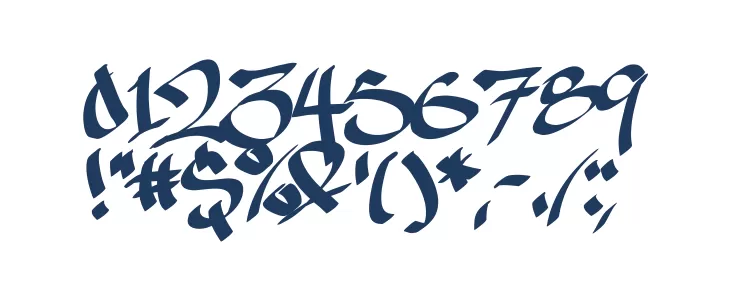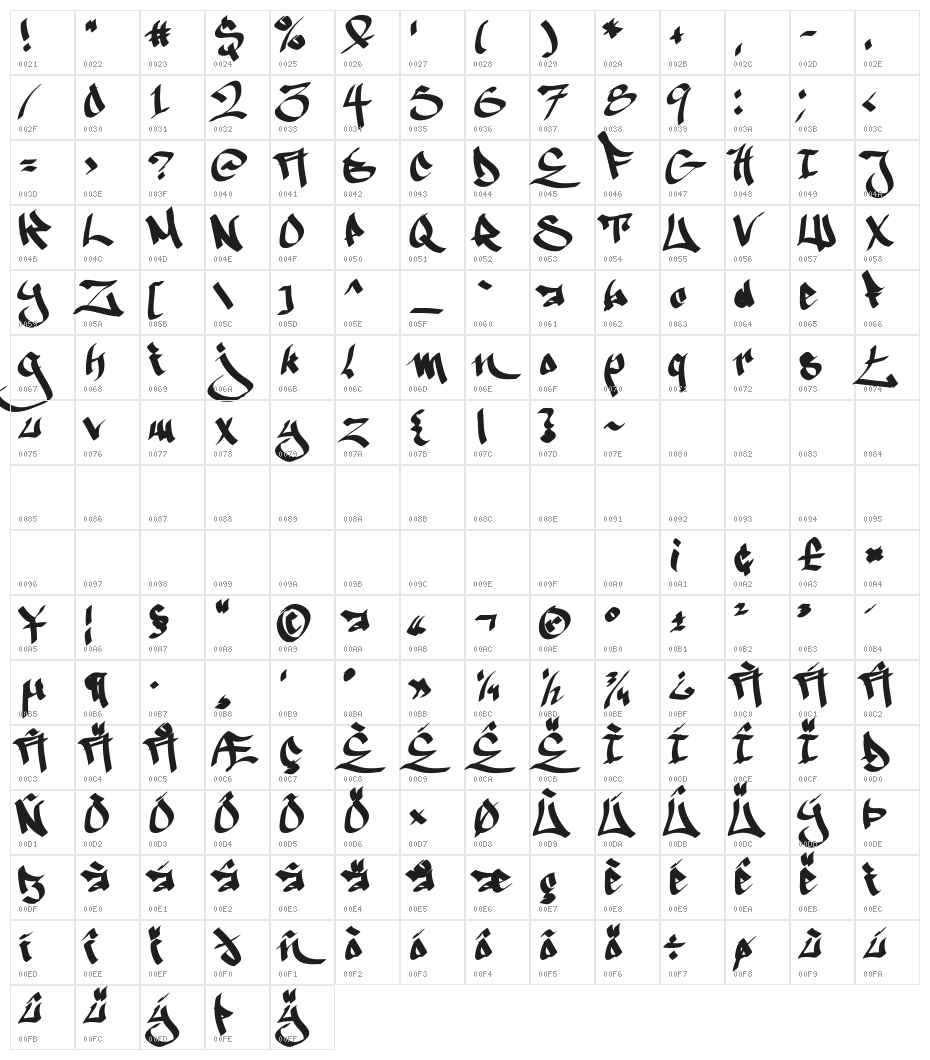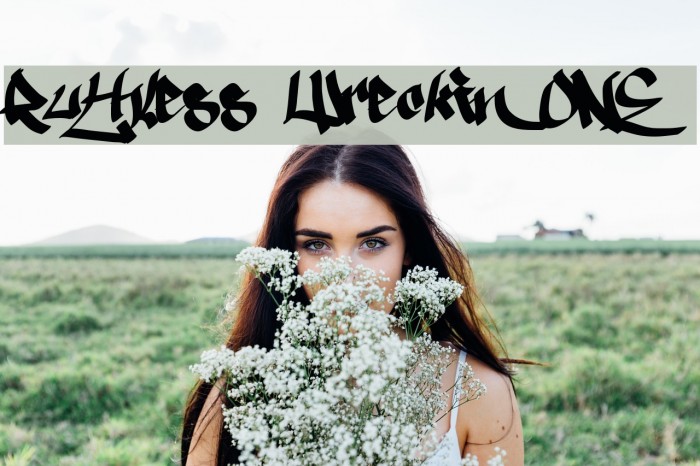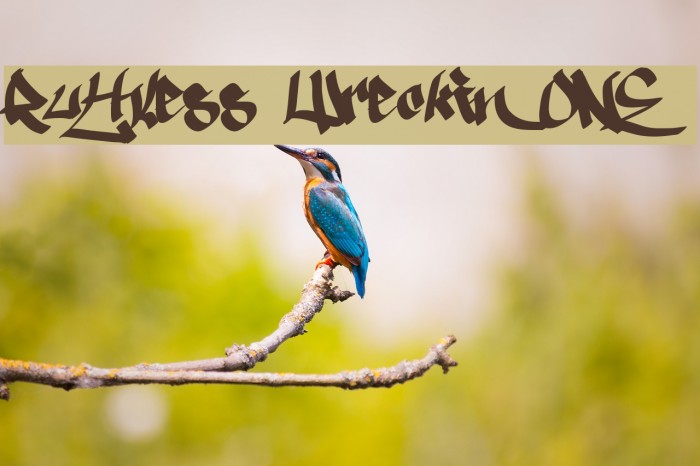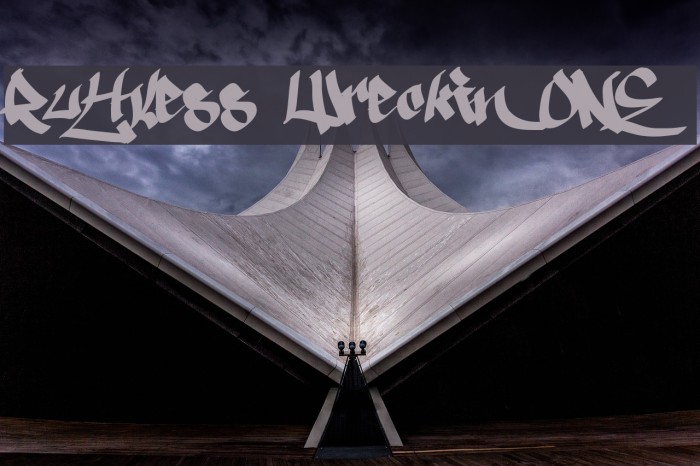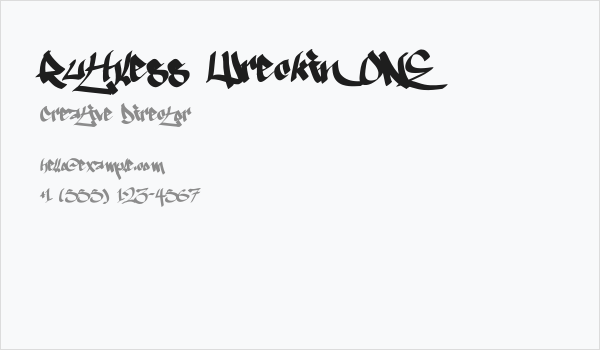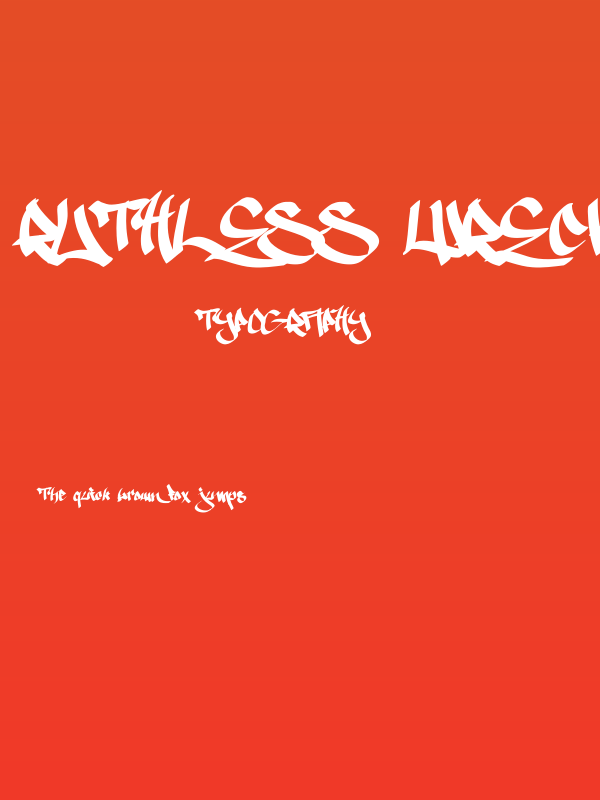
Ruthless Wreckin ONE Font
Ruthless Wreckin ONE Description
This font exudes a bold and dynamic graffiti style, characterized by its sharp, angular strokes and fluid, energetic forms. The letters are highly stylized, with exaggerated curves and dramatic flair, giving it a rebellious and urban aesthetic. The uppercase and lowercase letters maintain a consistent style, with a sense of movement and rhythm throughout. Numbers and special characters are equally expressive, adding to the font's overall impact. The design is reminiscent of street art, making it ideal for projects that require a strong, edgy visual statement.
| Overall Style | Urban, Rebellious, Graffiti |
| Use Case | Logos, Posters, Album Covers |
| Proposed Projects | Ideal for street art designs, urban-themed posters, music album covers, and edgy branding projects. |